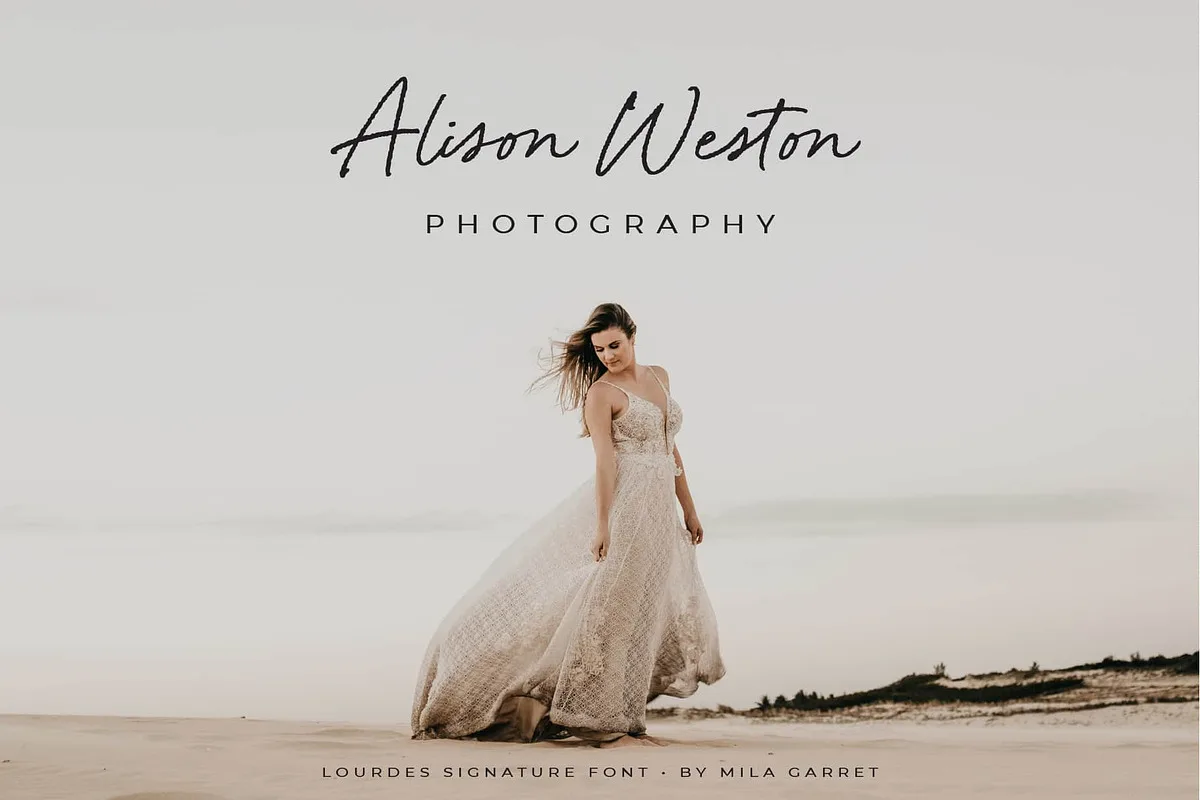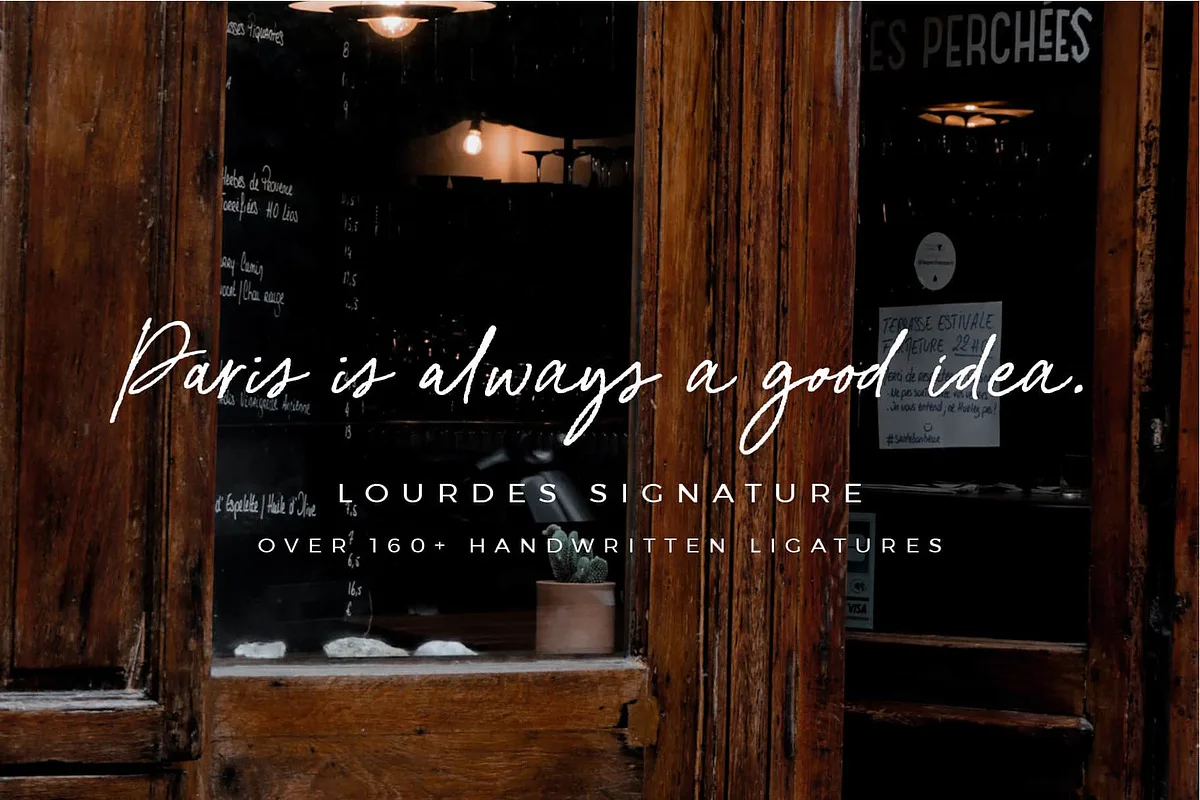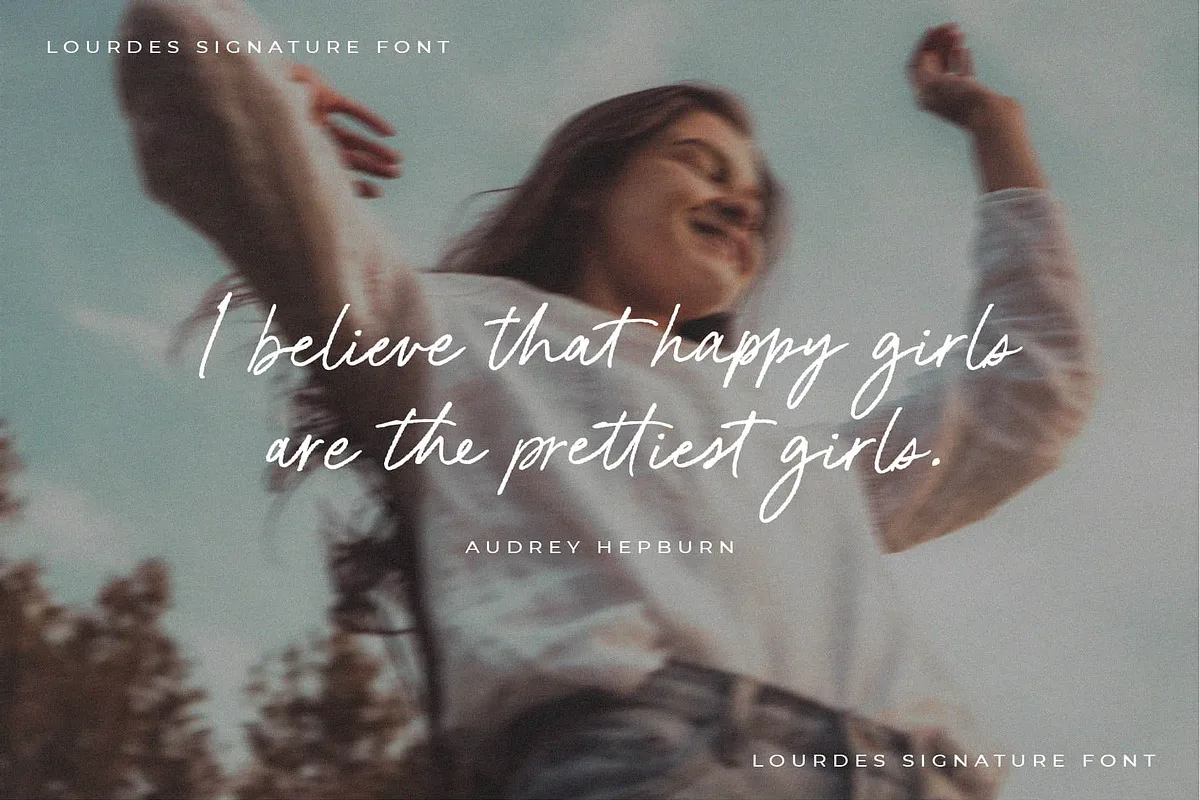
Lourdes Signature is a new inky script font, with a natural handwritten and textured look. With over 160 total ligatures (special double and triple letter combinations, designed to give a true handwritten feel), Lourdes Signature is perfect for minimalistic logos, editorial design, simple branding, instagram quotes, wedding stationery, packaging, websites, and more!
- Full Set of standard alphabet and punctuation
- 168 Handwritten Ligatures
- Multilingual Characters
Lourdes Signature Font: Signature Handwritten